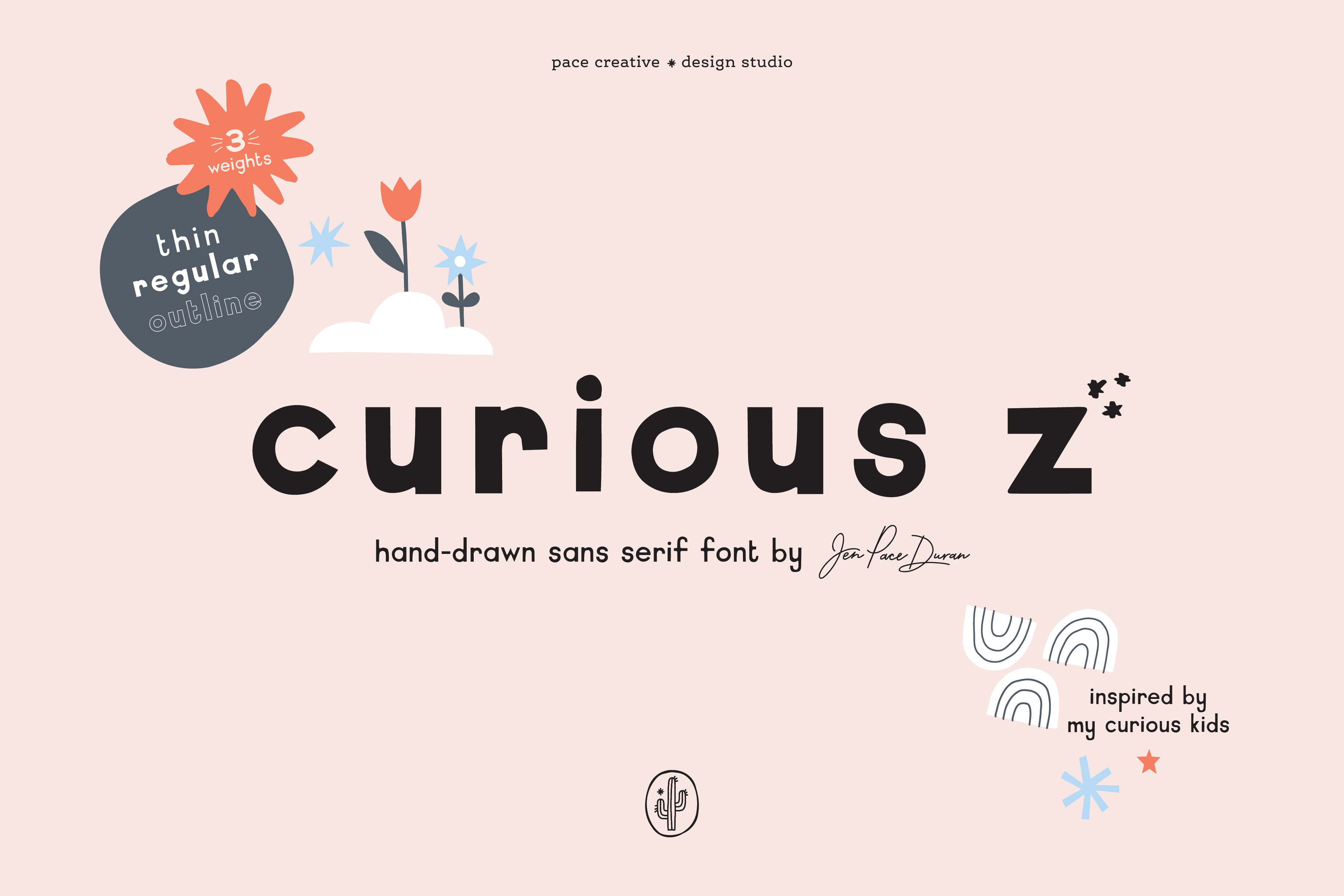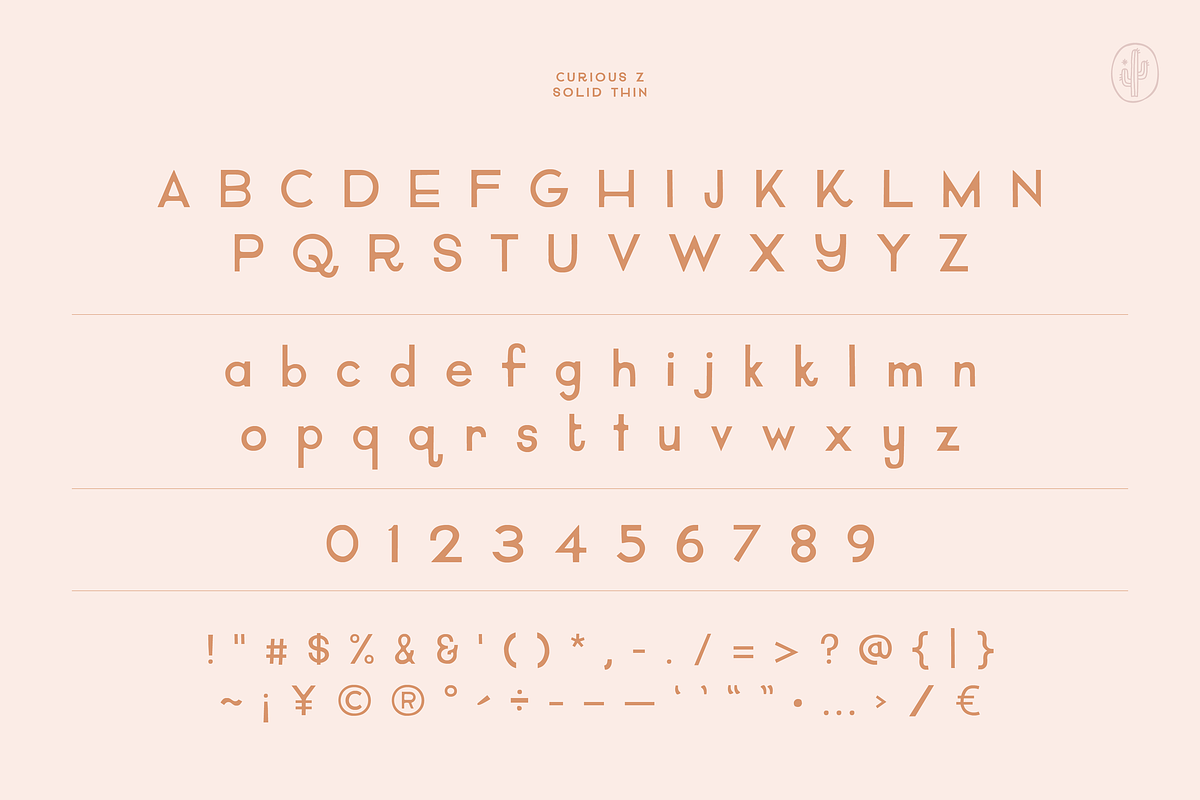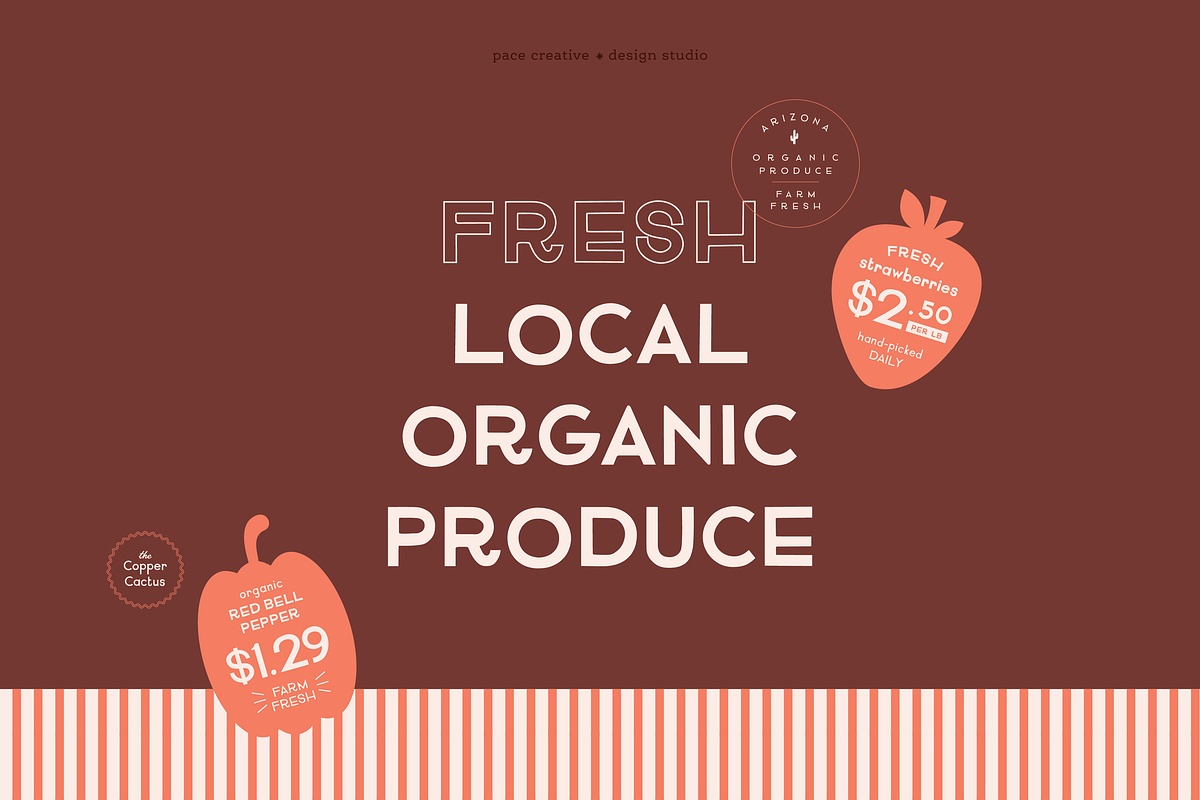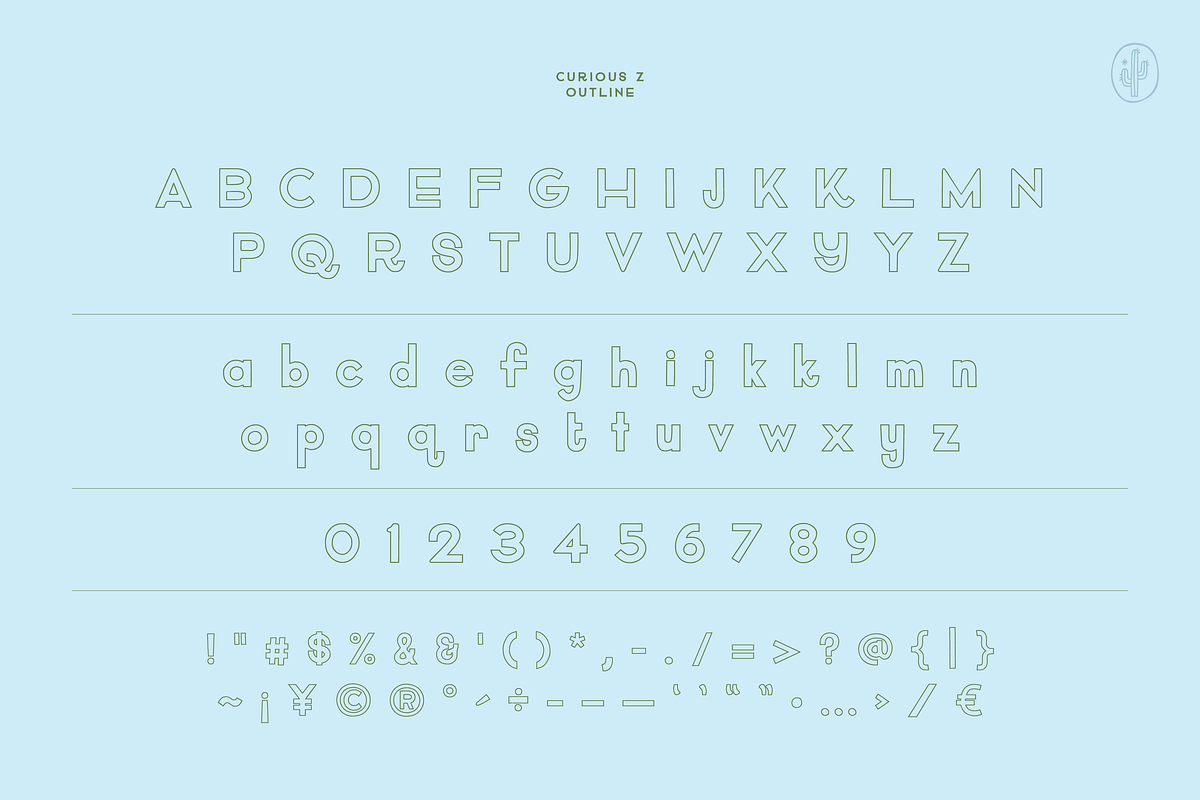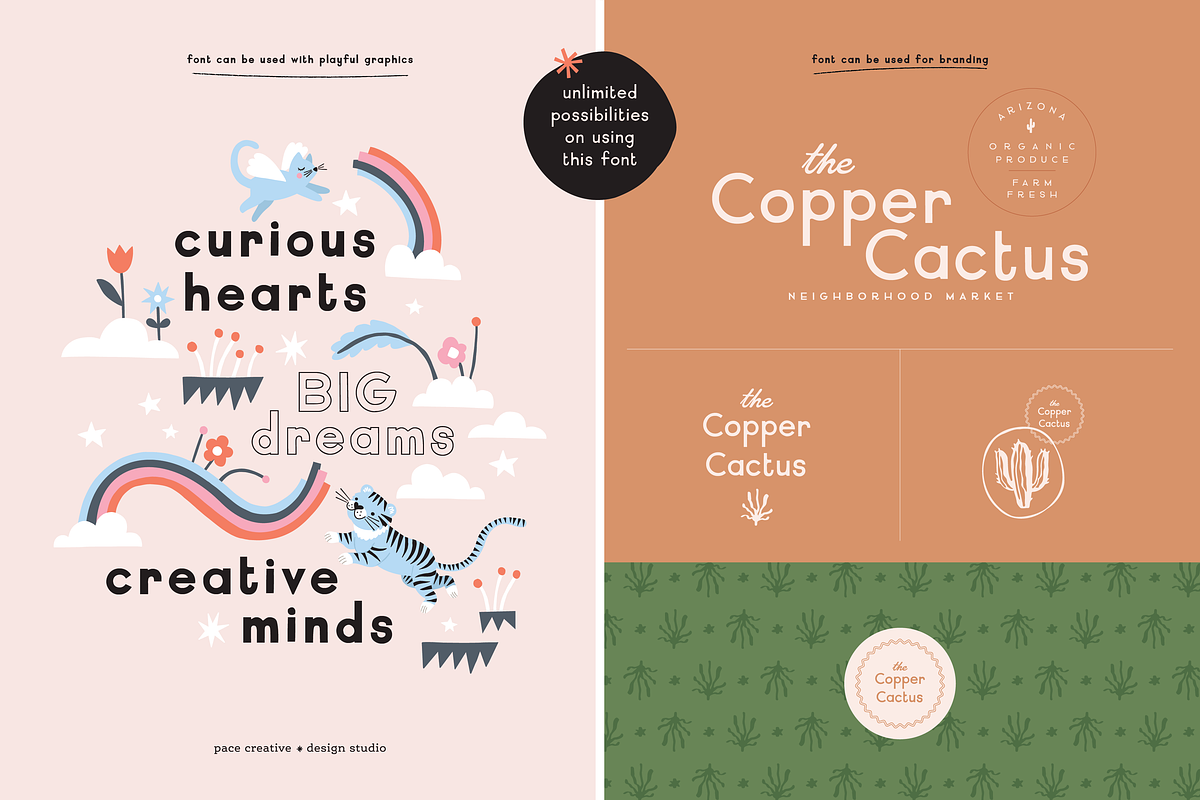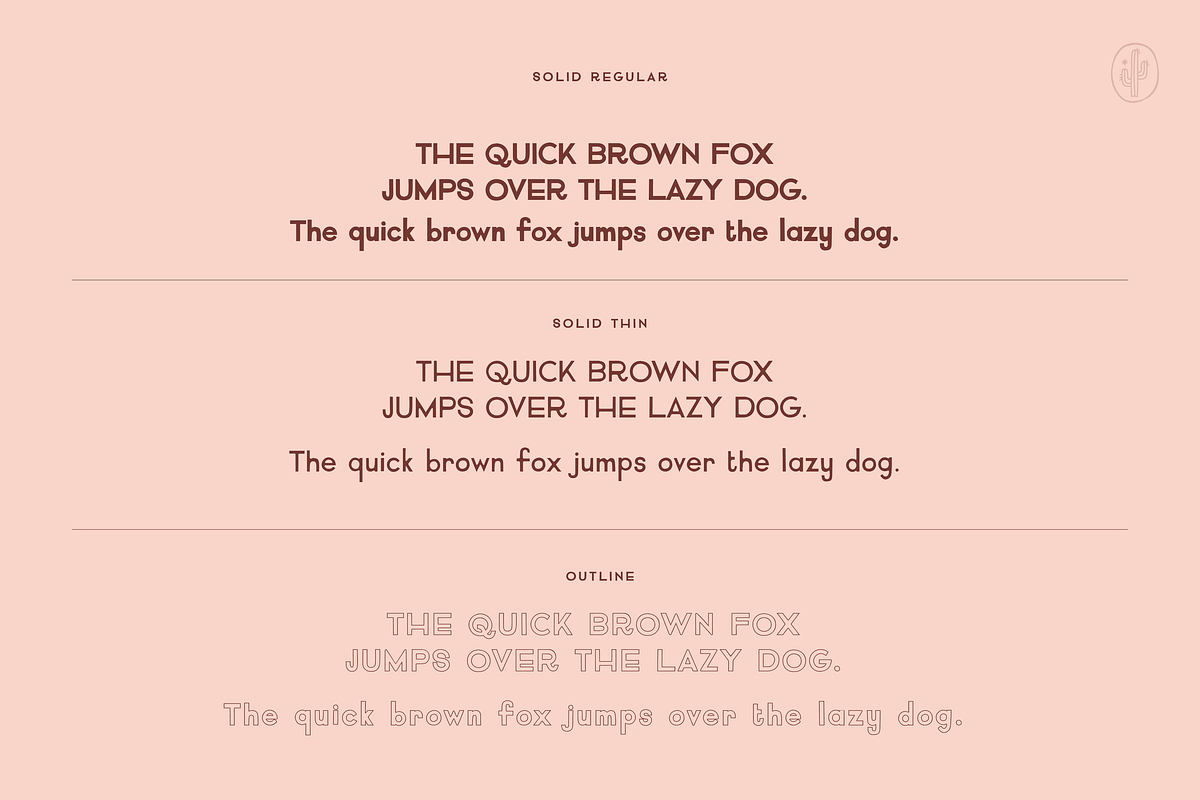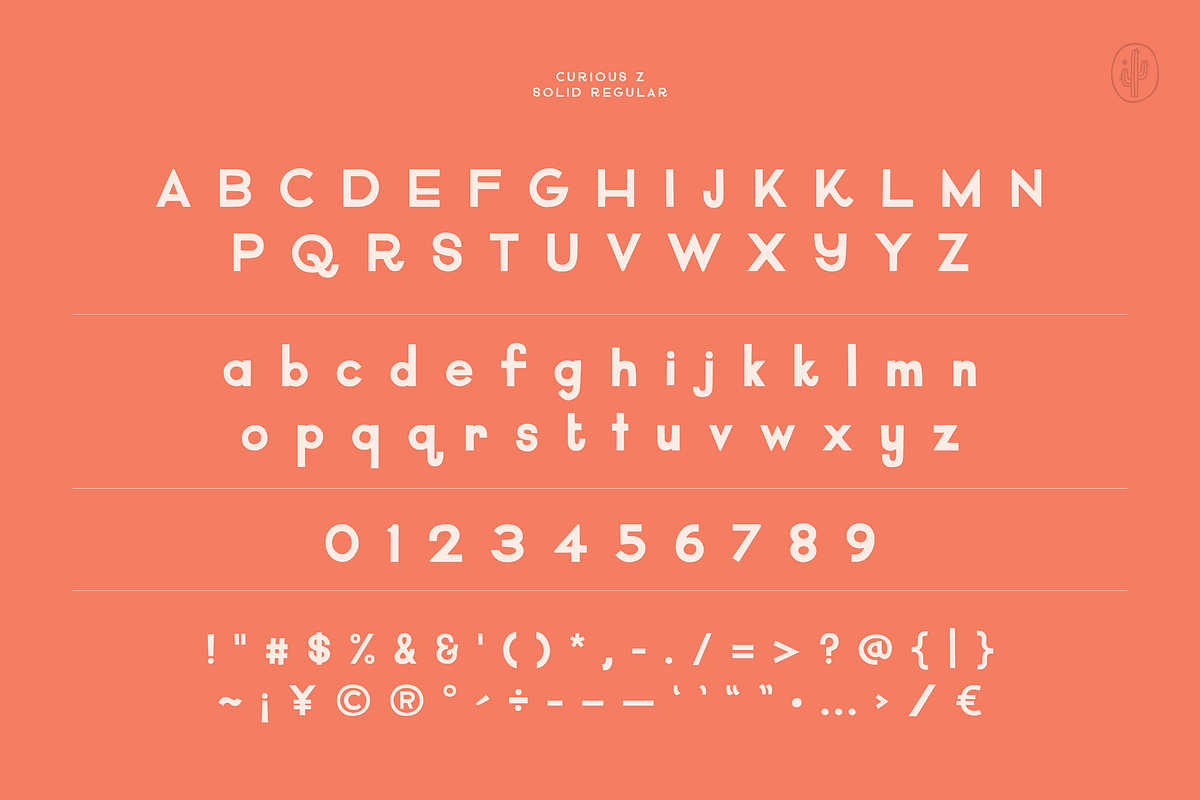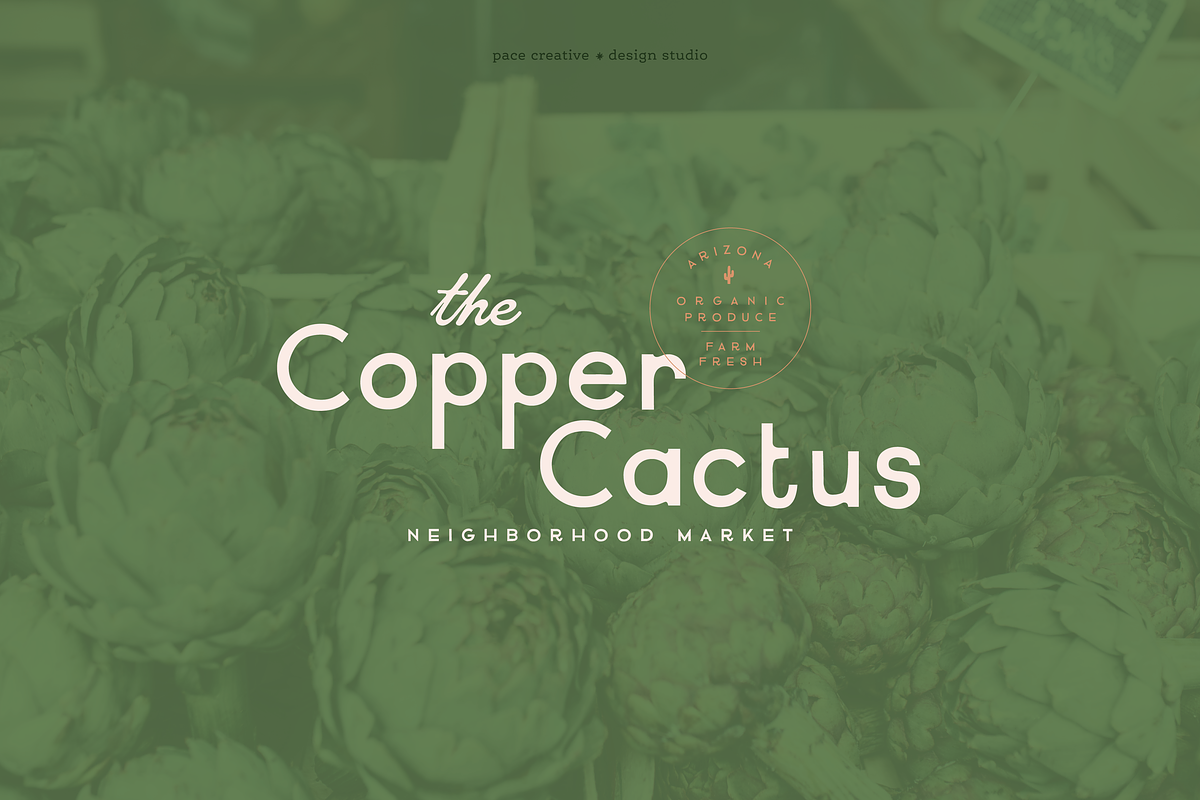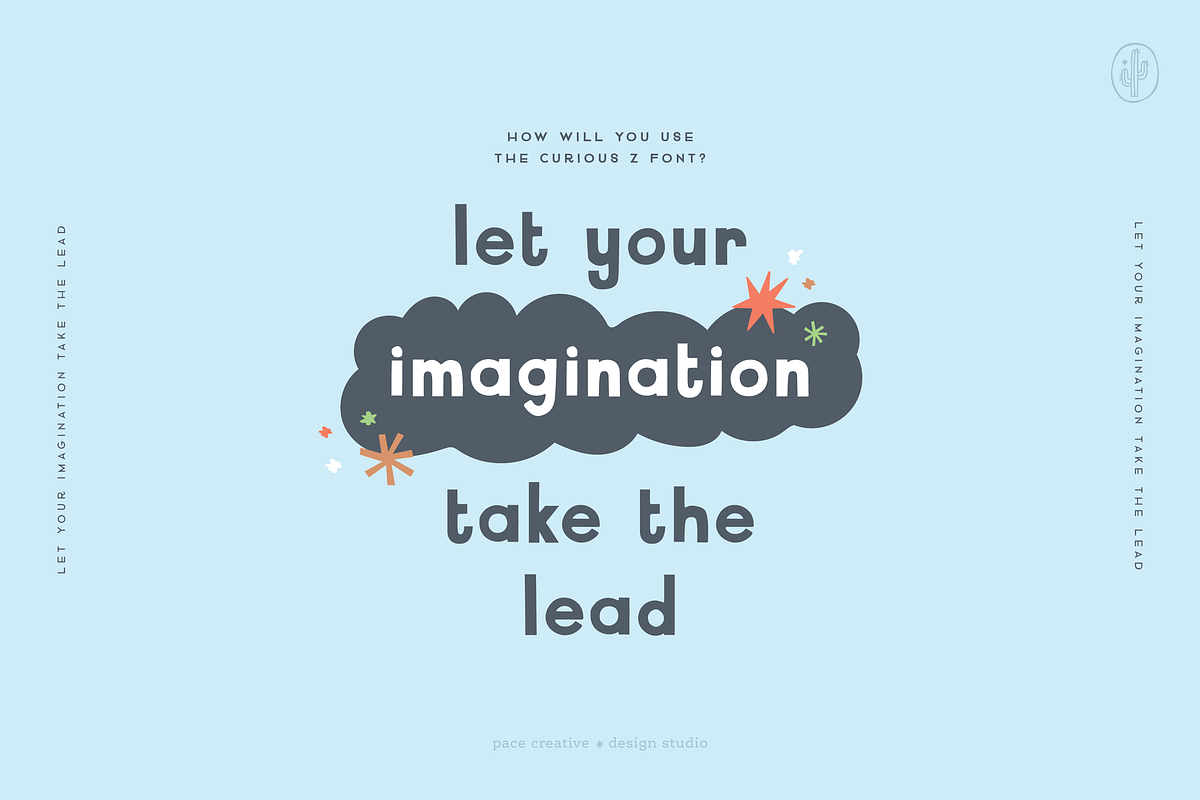
Curious Z: A Hand-Drawn Font
Curious Z is a hand-drawn sans serif font family that infuses playful charm with a fresh modern touch. Its tiny imperfections add a delightful handmade quality. Crafted with love and inspired by my curious kids, these typefaces capture the essence of nostalgia and whimsy. Whether you’re designing a logo, packaging, stationery, or book cover, let Curious Z be the magical touch that elevates your designs with its endearing character.
- 3 Weights – Regular, Thin, and Outline
- Lowercase Characters
- Uppercase Characters
- Alternate Characters
- Special Characters
- Multilingual support for various languages